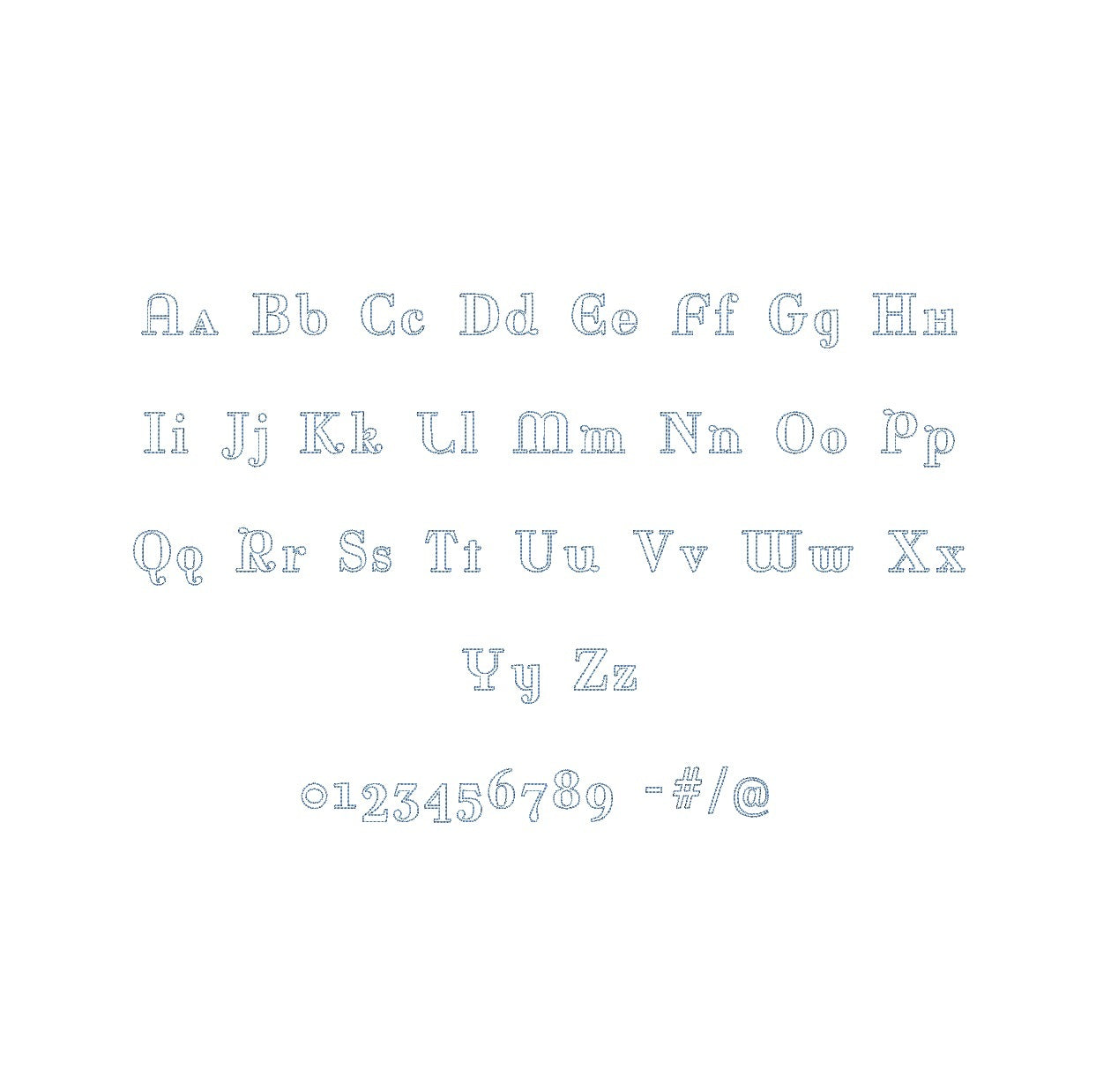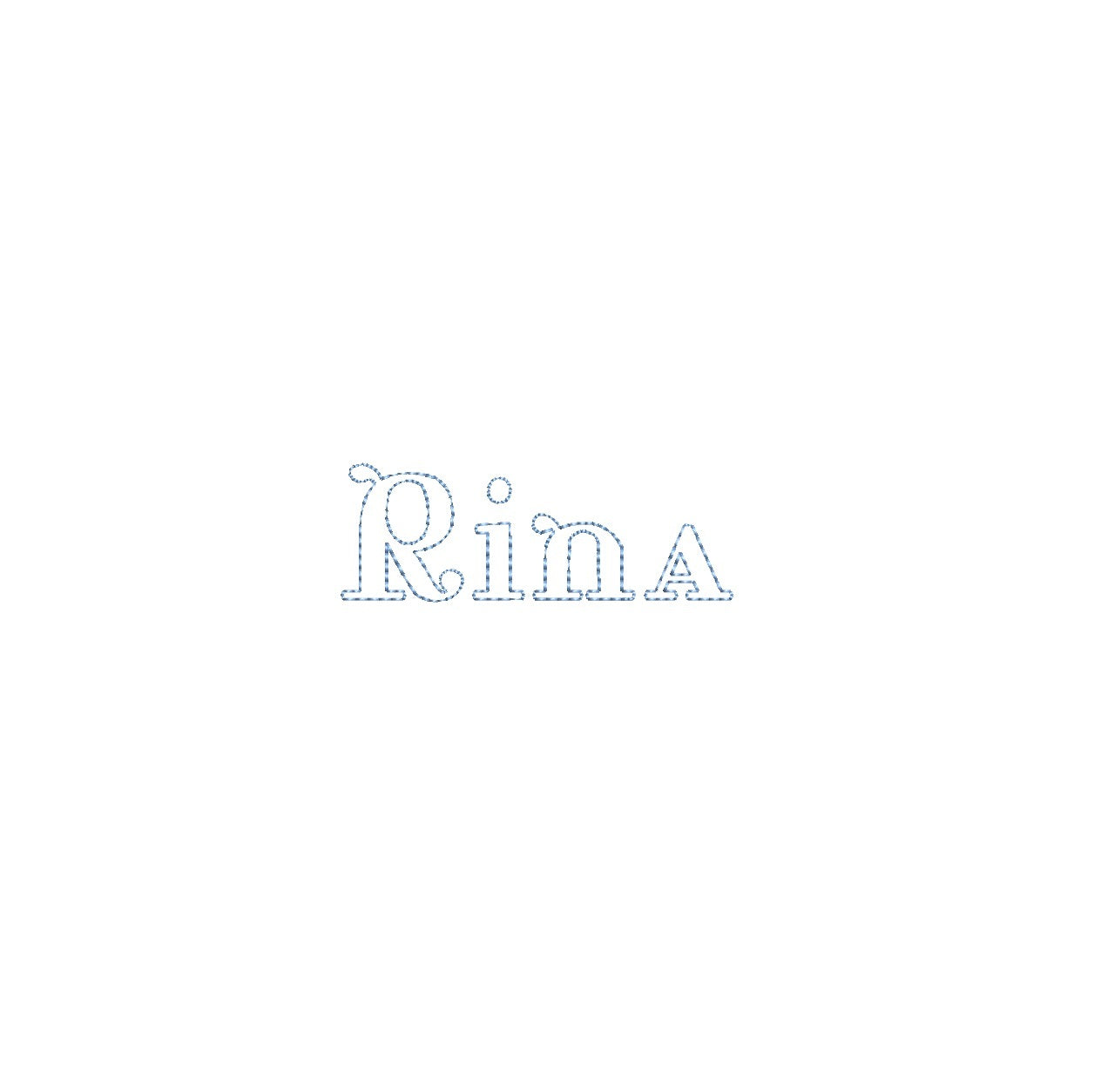
Elevate your embroidery projects with the Rina Bean Outline ESA font, compatible with Wilcom Studio e4.5.6 and Hatch 3 versions and up. This font seamlessly combines elegance and precision, infusing your designs with a unique aesthetic perfect for monograms and embellishments. Experience seamless compatibility for exceptional results and unleash a new level of stitching finesse. Transform your creations into embroidery masterpieces that radiate sophistication and creativity. Elevate your projects with the Rina Bean Outline ESA font and make your embroidery truly remarkable.